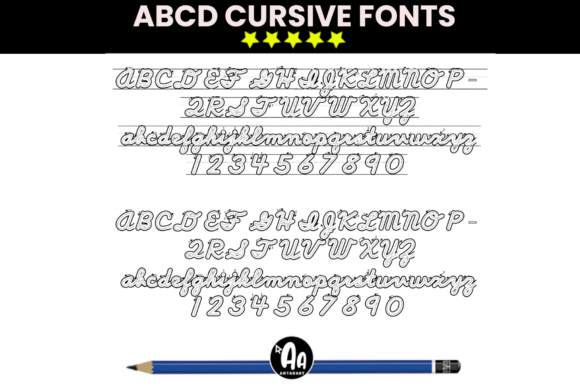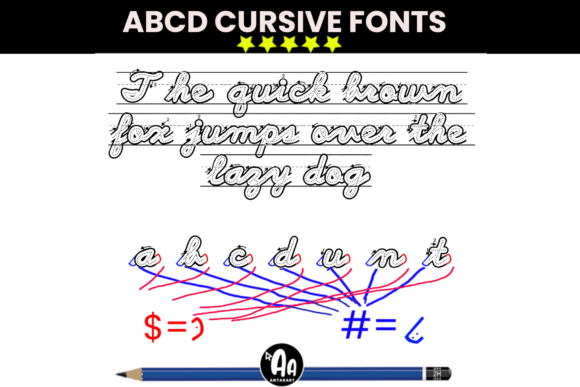
Introducing the Abcd Cursive Font: A Powerful Tool for Handwriting Education
Are you a teacher, homeschooler, or designer looking for a reliable and engaging way to teach cursive handwriting? Look no further than the Abcd Cursive Font, a versatile and user-friendly font designed to help you create thousands of worksheets using any software. Based on the D’Nealian method, this installable handwritten font is perfect for those who want to learn or teach cursive handwriting in an enjoyable and interactive way.
What is the Abcd Cursive Font?
The Abcd Cursive Font is a fully connected cursive font, meaning that it is designed to write words and sentences in a flowing, connected script. This style is more commonly used for everyday writing and is ideal for teaching students to write in cursive. The font includes both uppercase and lowercase letters, as well as numbers 0-9, making it a comprehensive tool for handwriting education.
Key Features of the Abcd Cursive Font
- Fully Connected Cursive Script: Based on the D’Nealian method, this font provides a flowing and connected script perfect for teaching cursive handwriting.
- Uppercase and Lowercase Letters: Includes both uppercase and lowercase letters, allowing you to create a wide range of worksheets and handwriting exercises.
- Numbers 0-9: The font also includes numbers 0-9, making it easy to create worksheets that incorporate numerical handwriting practice.
- Support for Teachers and Homeschoolers: This font is designed to support educators and homeschoolers in creating engaging and interactive handwriting exercises.
Benefits of Using the Abcd Cursive Font
The Abcd Cursive Font offers a range of benefits for teachers, homeschoolers, and designers, including:
- Improved Handwriting Skills: By using this font, students can develop strong handwriting skills and master cursive through engaging tracing exercises.
- Enhanced Learning Experience: The font’s interactive and engaging design makes learning cursive handwriting a fun and enjoyable experience for students.
- Increased Productivity: With the Abcd Cursive Font, you can create thousands of worksheets using any software, saving you time and effort.
- Customization Options: The font is available in both joined outlined dotted arrows lined and unlined versions, allowing you to customize your worksheets to suit your needs.
The Abcd Cursive Font is a powerful tool for handwriting education, offering a range of benefits for teachers, homeschoolers, and designers. With its fully connected cursive script, uppercase and lowercase letters, and numbers 0-9, this font provides a comprehensive solution for teaching cursive handwriting. Easy to install and use, the Abcd Cursive Font is a must-have tool for creating printable worksheets and supporting handwriting education.